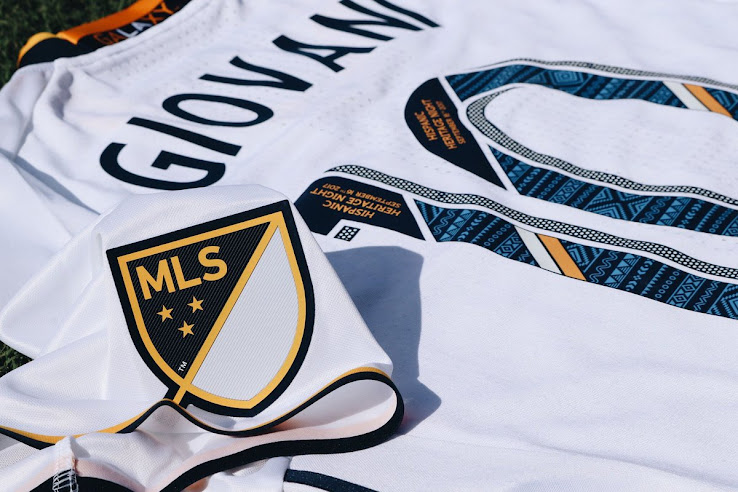
Beautiful LA Galaxy 2017 Hispanic Heritage Night Kit Font Revealed
To celebrate Hispanic Heritage Night, Major League Soccer club LA Galaxy has revealed jerseys with one-of-a-kind numbers. The special LA Galaxy 2017 Hispanic Heritage Night jerseys were worn in yesterday's 0-4 loss against Toronto.
LA Galaxy Reveal 2017 Hispanic Heritage Jersey with One-of-a-Kind Font
This is the special LA Galaxy 2017 Hispanic Heritage font.
Based on the standard MLS typeface, LA Galaxy's special 2017 Hispanic Heritage Night jersey font includes an one-of-a-kind graphic pattern as well as the lettering 'Hispanic Heritage Night' and the date 'September 16th 2017".